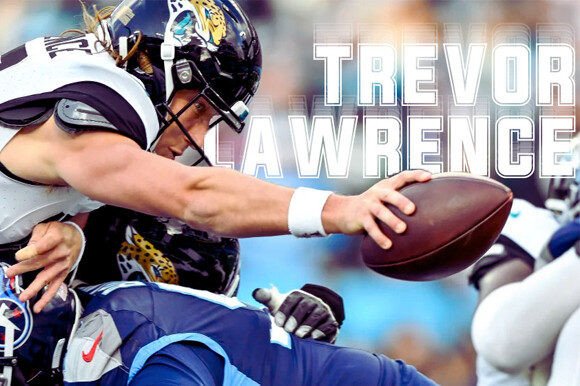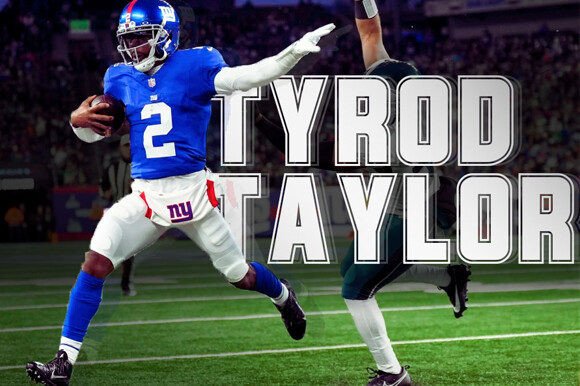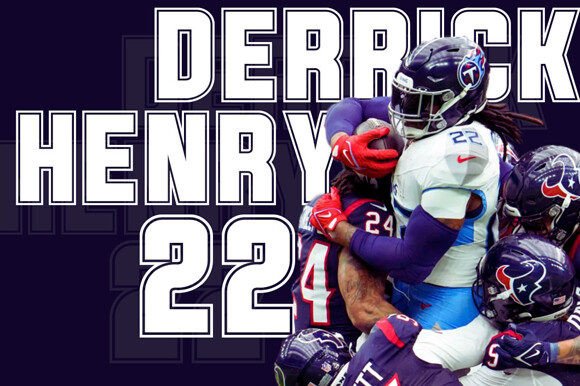
American Sport Font
American Sport Font is a tall sport font with an outline. It looks powerful and is created to add a vibrant touch to your sport-inspired designs. Suitable for sports design, team, jersey, league, movie, documenter, film, logo, poster, game, book cover, headlines, title, and many more projects.